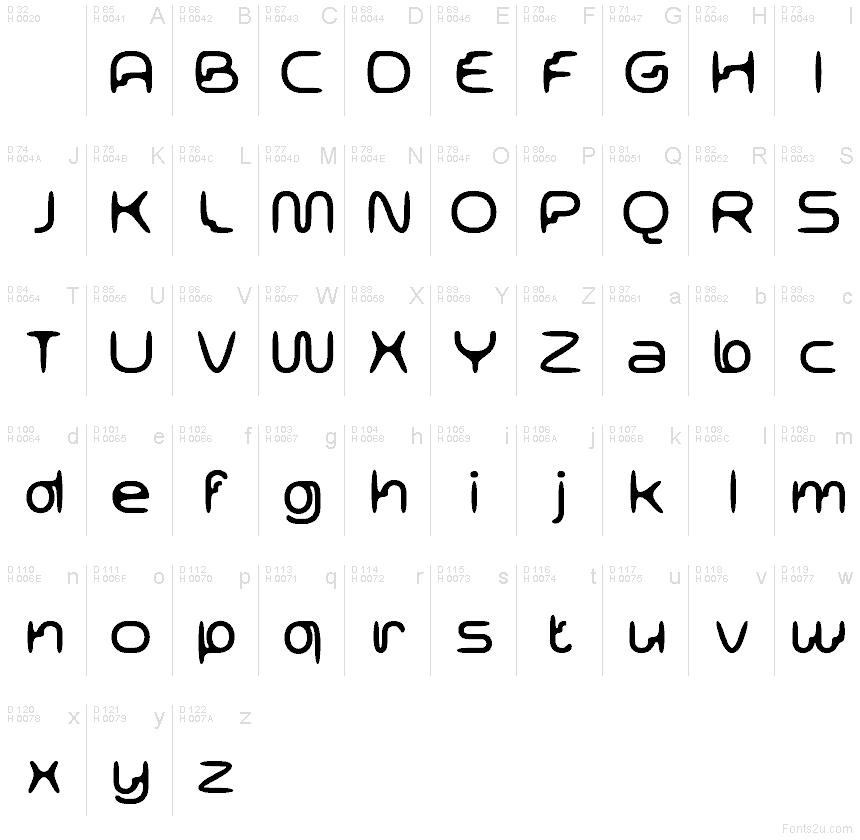
CSLorenaDrawn-Regular Demo
CS Lorena Drawn font by Craft Supply Co. is a unique display font from the CS Lorena family. An expanded modern style marks every letter, each of which features geometrical shapes inspired by simple lines and perfect curves for a contemporary appearance.
Use this free minimalistic font on catchy headers, digital interface paragraphs, posters, book covers, social media posts and assorted branding designs. Whenever you’re after neat yet futuristic text styles that match your keywords to perfection, consider this typeface without hesitation.